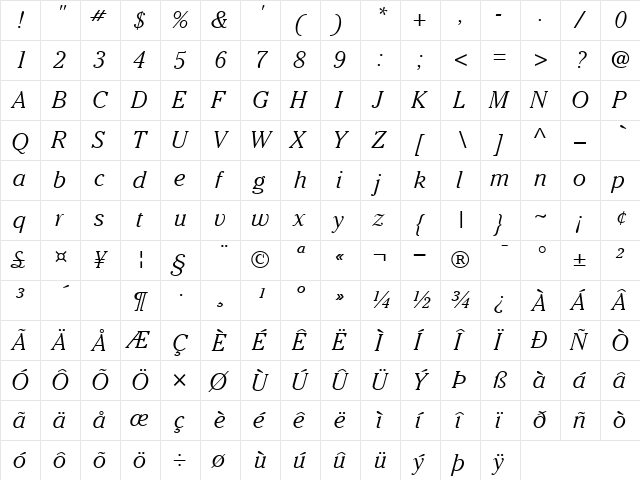
Cheltenham LightItalic Font Preview
Design Context for Cheltenham Typeface
Cheltenham offers clean, dependable letterforms without strong stylistic allegiance, making it a practical choice for designers who need flexibility. The dynamic lean of this cut emphasises speed and emphasis in any layout. The delicate stroke weight brings airiness and refinement to layouts.
Pro Tip: Try Cheltenham for annotation and caption copy alongside an upright companion — the contrast in angle creates a dynamic but ordered typographic system.